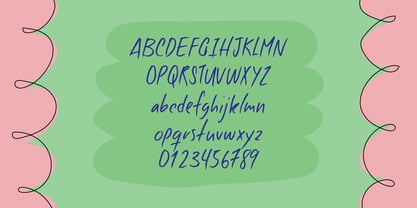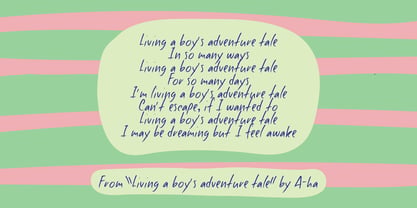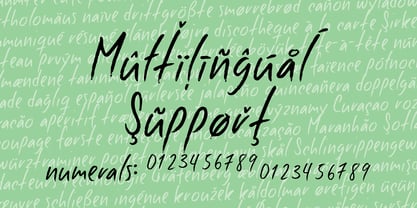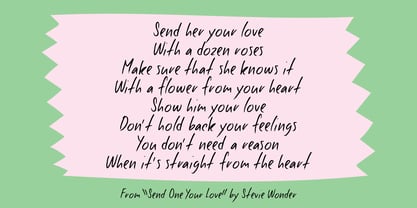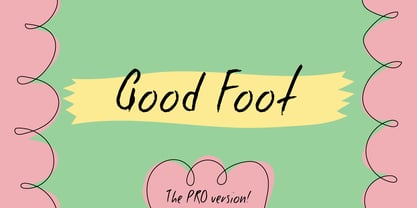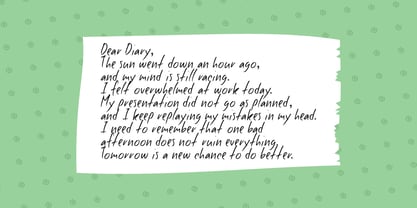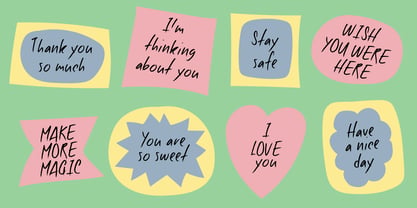
Good Foot Pro
The Good Foot Pro Font Family was designed by Jakob Fischer and published by PizzaDude.dk. Good Foot Pro contains 1 styles. More about this family
Originally designed way back in 2005, and now ... 21 years later, updated :)
I remember my original description. It was short, but nevertheless spot on. It said "My handwriting when in "speed mode" And that is correct - and it's even still correct, here in 2026!
The update includes:
Corrected spacing
Added kerning
Multilingual support
Added missing glyphs
Now you can enjoy a handwritten font, super useful for mimicking handwriting. A good use could be invitations, journals, crafts and other creative stuff, books, magazines, packaging and other sorts of things including massive texts.
Features:
Contextual Alternates is a super nice feature. In this case I have added 5 versions of each lowercase letter, and they automatically changes as you type. Or, you can manually choose the letter(s) that you wish. This is a great way to avoid obvious repeating letters, making your text look more vivid, vibrant and organic.
I have included the Standard Ligatures - the well-known ligatures such as ff, fi, fl, ffi, ffl
Subscript and Superscript
Normally typedesigners resizes the numbers to make Subscript and Superscript. I do that on occasions as well, but in this case I have drawn the numbers, instead of resizing them. That way they appear more natural, organic and unique.
Fractions are nice having available. You skip the work of resizing the numbers yourself, because I have done all the work for you!
Multilingual support
This font comes with extensive multilingual support, and supports loads of different languages.